The Scandal of the Century
Historic elegance for a scandalous tale – an ornate cover design honouring England’s first professional female writer.
Commissioned by Penguin Random House, I designed the cover for The Scandal of the Century, Lisa Hilton’s biography of Aphra Behn, England’s first professional female writer.
The lettering takes inspiration from 17th-century decorative styles, with a decorative ‘A’ featuring a quill pen crossbar.
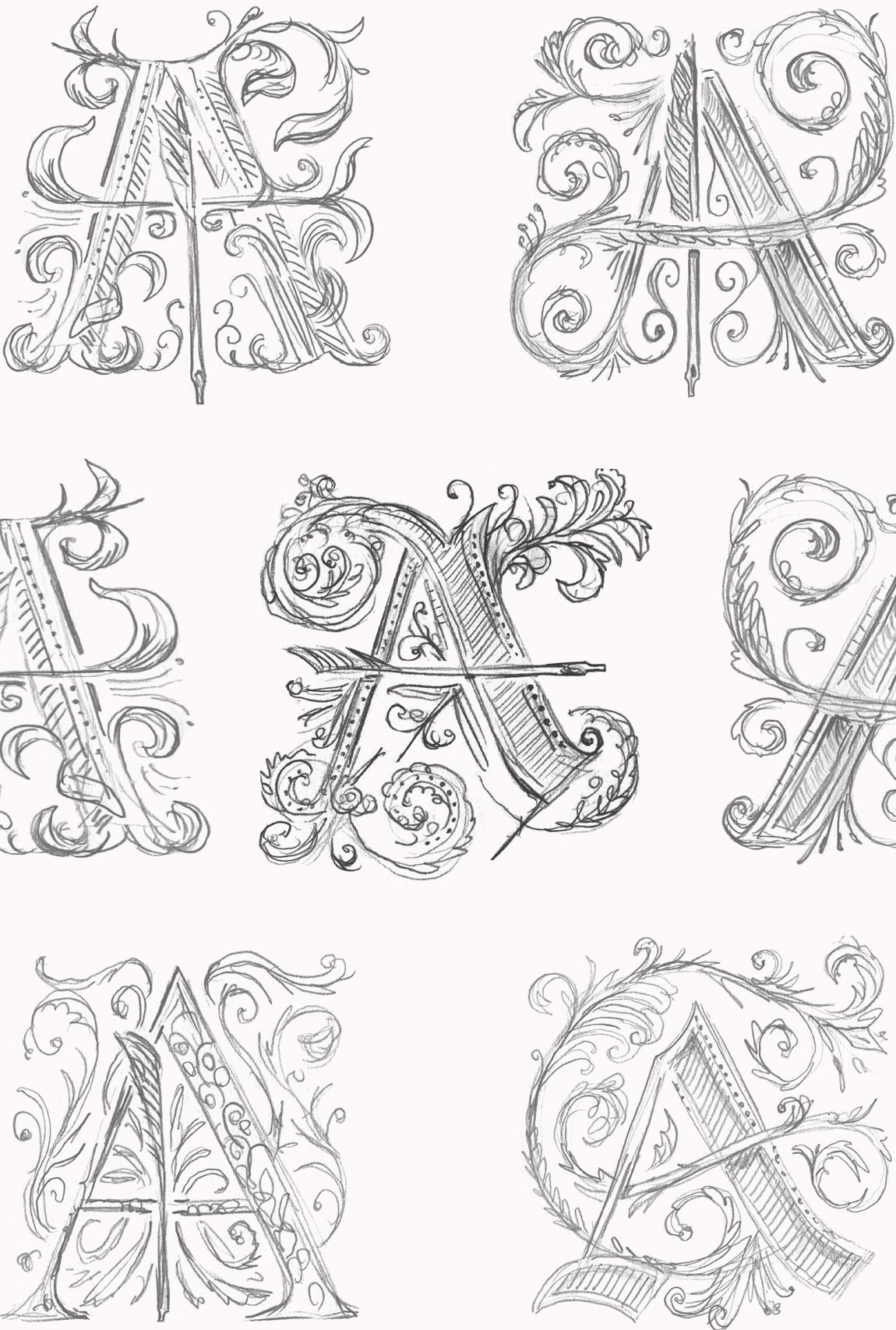
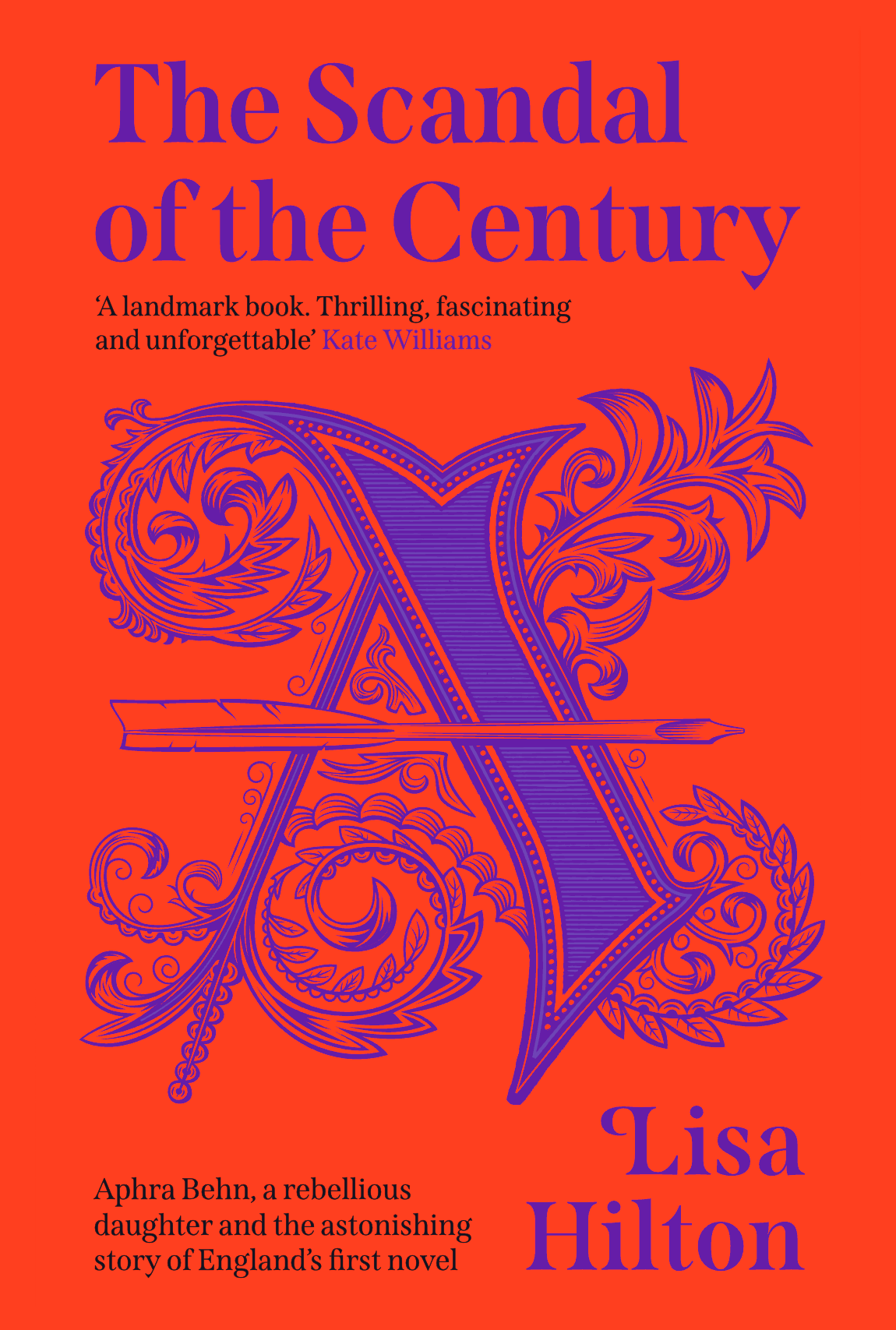
I developed the monogram with intricate flourishes and balanced ornamentation, ensuring it felt both historical and refined.
The surrounding typography is set in my typeface Span, chosen for its timeless elegance and ability to balance both modern and historical themes.
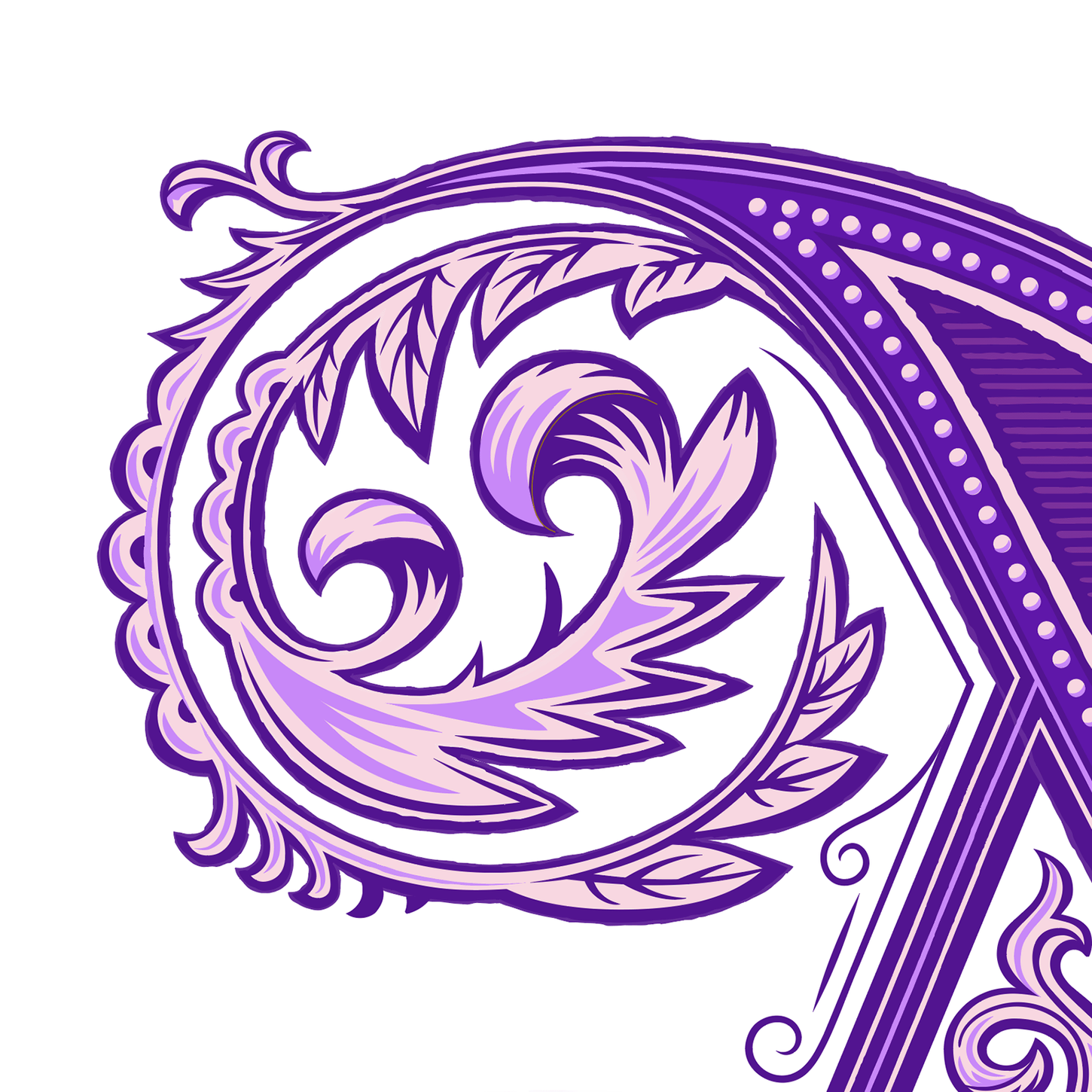
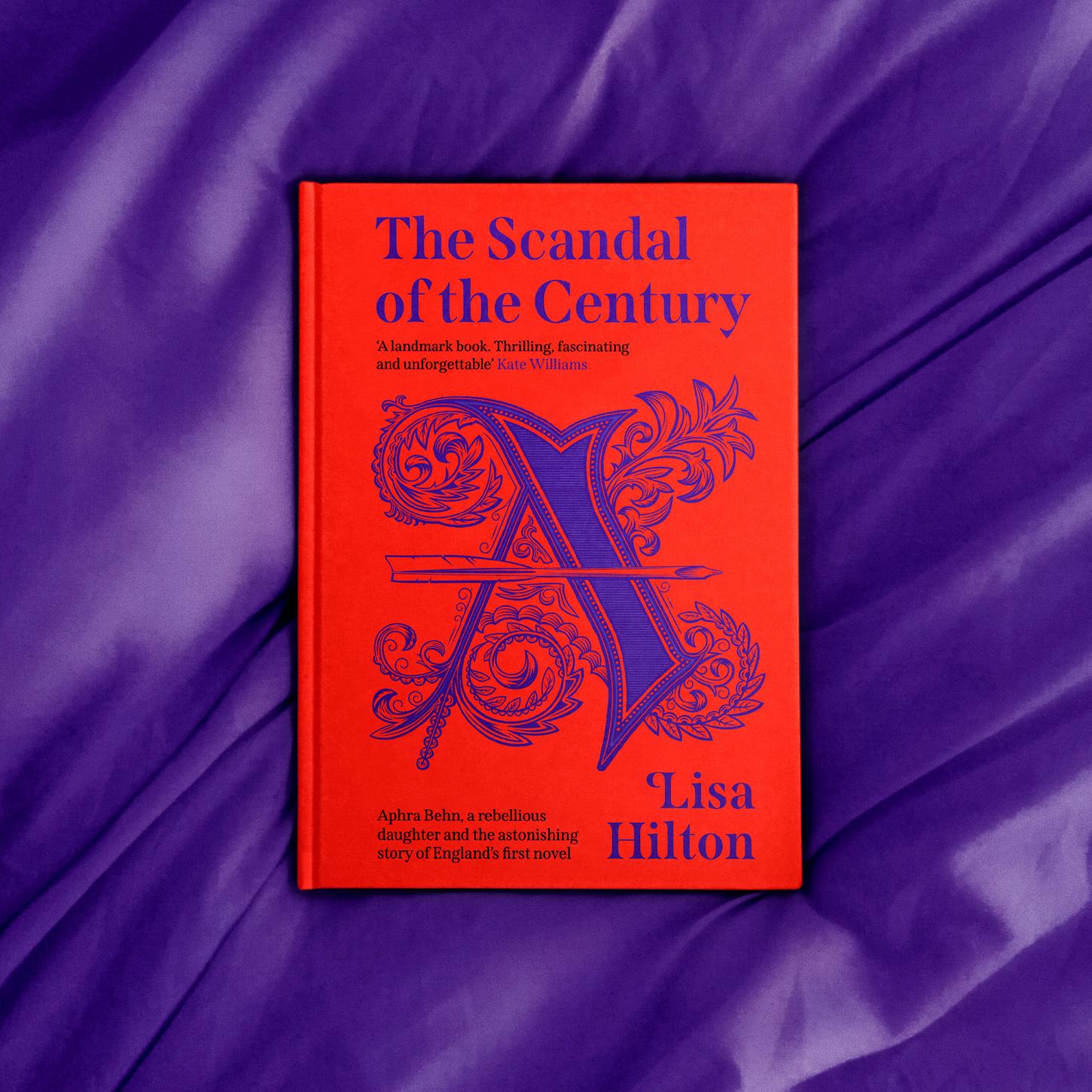
The final cover captures the drama and historical richness of Behn’s life, blending period detail with an eye-catching colour combination.
The design has been well received for its striking execution and tribute to one of literature’s great pioneers.